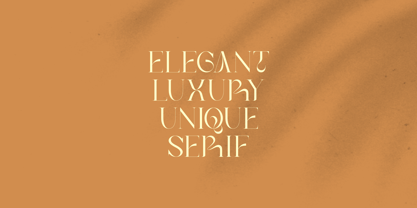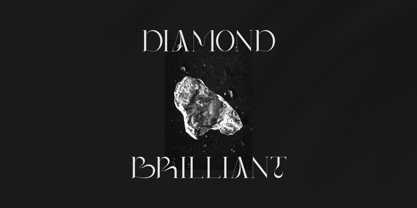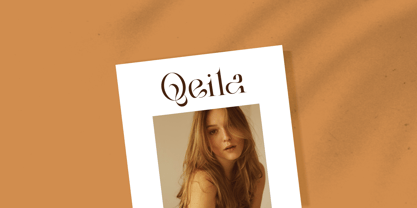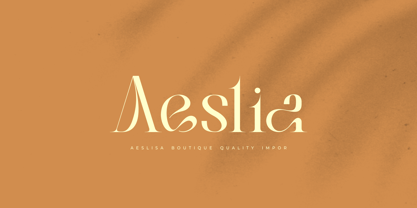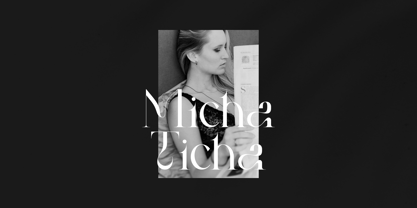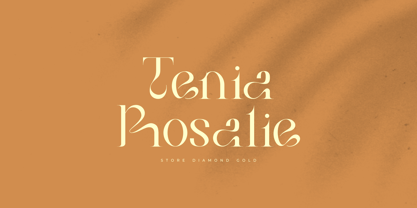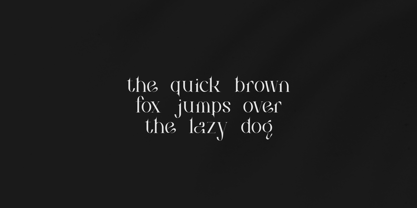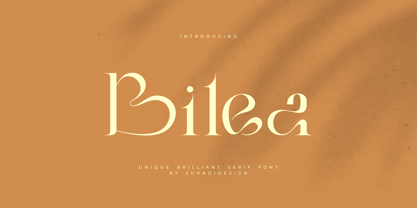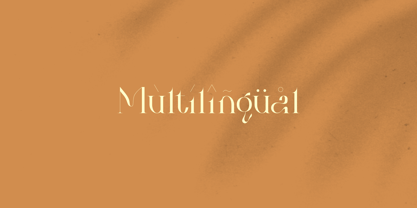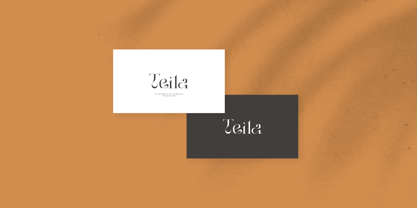
Bilea
by suhadidesign
The Bilea Font Family was designed by ahmad suhadi and published by suhadidesign. Bilea contains 1 styles.
Bilea - Unique Brilliant Font
The latest stylish modern font has arrived, a font that is being sought after by many women and men. It's the Bilea font. Bilea is a unique and elegant serif font. With its elegant and unique, contemporary design, this font has become a favorite on the market. We maintain this font's elegant, classy, ​​and stylish look. Bilea is the perfect choice for magazines, designs, books, publications, branding, brand names, business cards, social media, classy designs, newspapers, branding, beauty, and other projects. Bilea is here to elevate the quality of your designs.
Features:
• Capital Letters
• Lowercase Letters
• Multilingual Support
• Numerics
• Punctuation